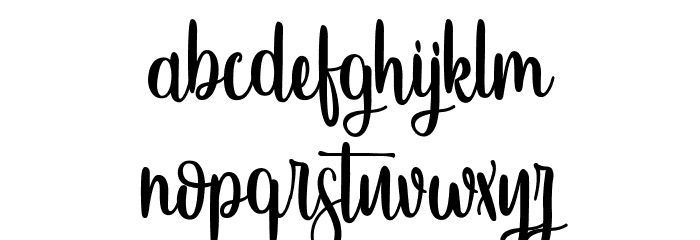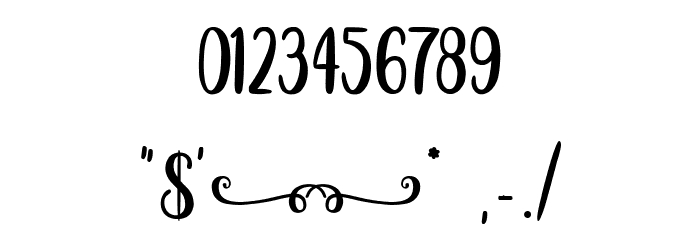
Sweet Hipster Font
This font features a playful and whimsical style with a handwritten appearance. The letters are characterized by smooth, flowing lines and a slight slant, giving it a casual yet elegant look. The uppercase letters are bold and prominent, while the lowercase letters maintain a consistent flow with occasional loops and flourishes. The numbers are clear and easy to read, matching the overall style of the alphabet. Special characters include decorative elements that add to the font's charm, making it suitable for creative and artistic projects.
A playful, handwritten font with smooth, flowing lines and decorative elements.
- Proposed Projects: Ideal for greeting cards, invitations, posters, and branding materials that require a personal touch.
- Use Case: Logos, Headlines, Invitations